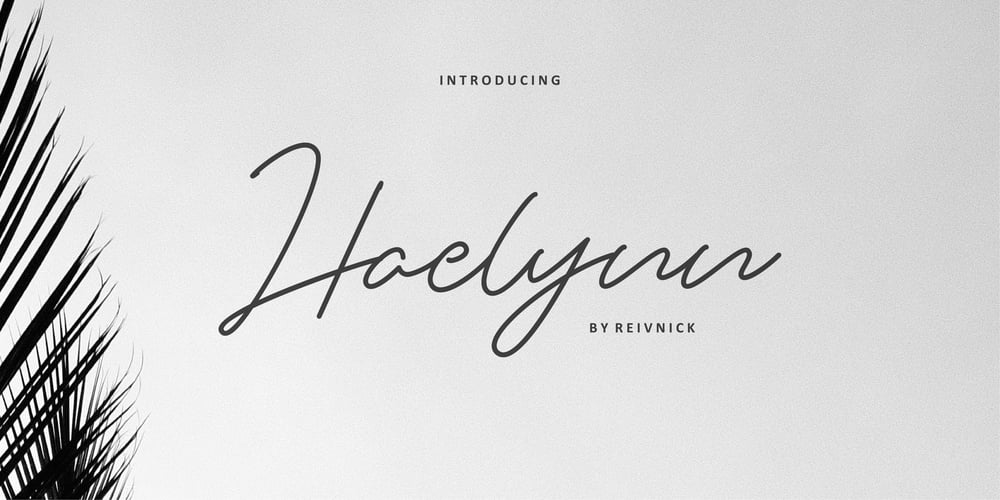
Haelynn
Haelynn font
Haelynn Font Family was designed by Benediktus Hosni Iryandito and published by ReivNick. Haelynn contains 1 styles and family package options. Haelynn has its own characteristics with the style of monoline. Haelynn is perfect for invitations, signatures, blogs, social media, business cards, and product brands.